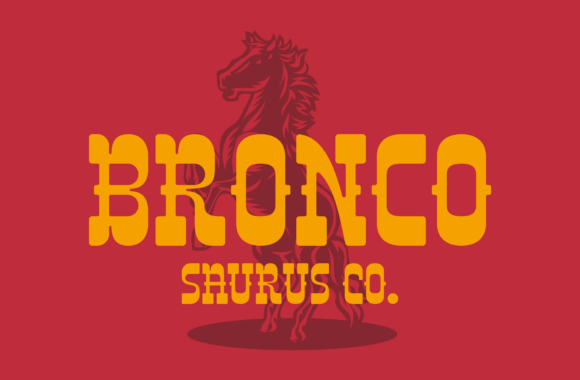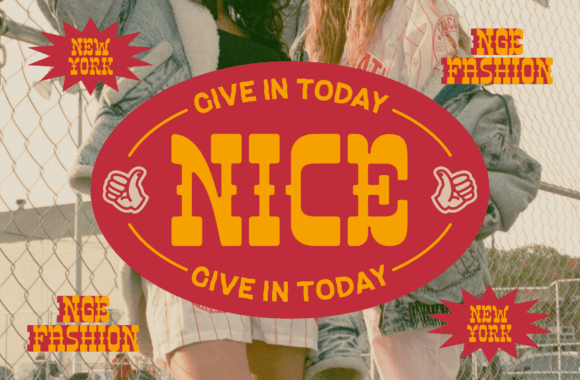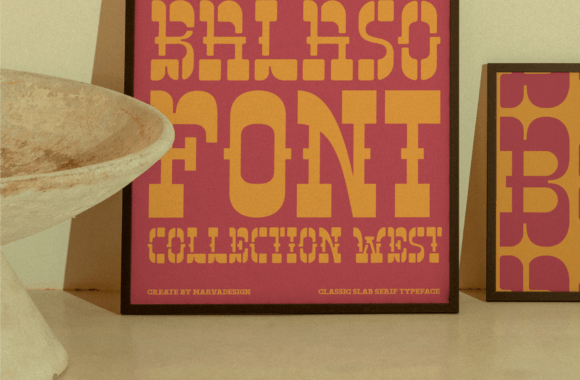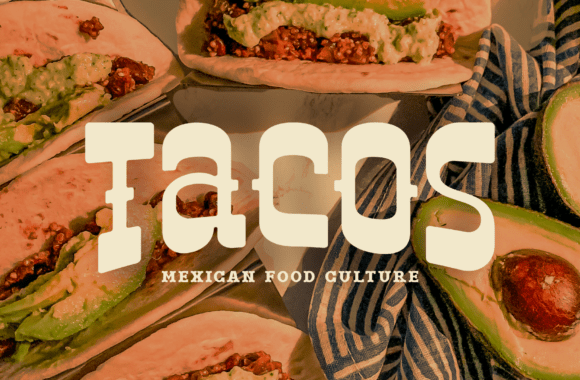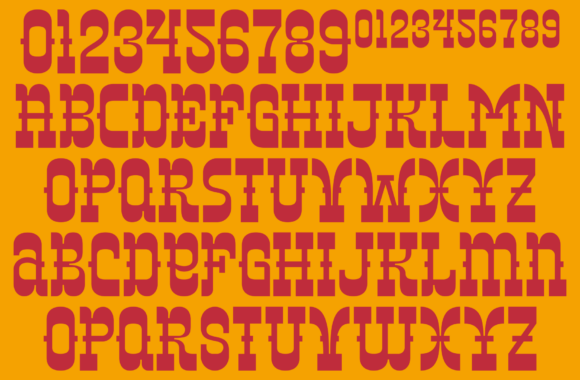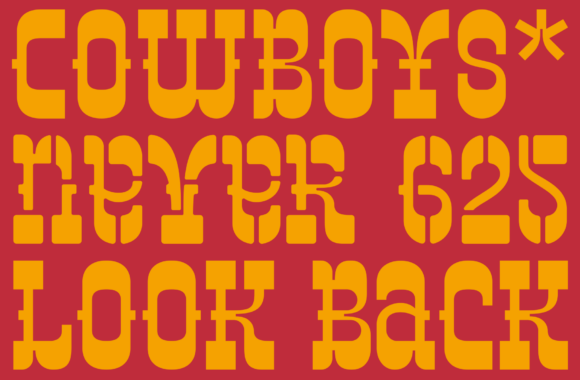
Introduction to El Balaso Font
As a designer, have you ever found yourself stuck on a creative project, desperately searching for the perfect font to capture the essence of your vision? Maybe you’ve scoured through endless options, only to end up with something that feels generic or unoriginal. Well, we’ve got some exciting news for you – your search is over with the introduction of El Balaso Font, a bold and expressive western-style typeface that’s about to revolutionize your design game.
With its retro and rugged aesthetic, reminiscent of classic Wild West signs and vintage rodeo posters, El Balaso Font is the perfect addition to any design project that requires a touch of nostalgia and high-quality style. Whether you’re working on a branding project, a fashion editorial, or a music poster, this versatile typeface is sure to make a statement.
Not only is El Balaso Font a valuable resource for designers, but it’s also free to download and comes with a transparent background, making it easy to integrate into your creative projects. With its three unique styles – Regular, Rounded, and Stencil – you’ll have endless possibilities to experiment and find the perfect fit for your design.
Key Features of El Balaso Font
- High-quality design with a unique, whimsical style, making it perfect for creative projects.
- Includes a range of glyphs, including international characters, making it a versatile design resource.
Honest Review: El Balaso Font
As a designer, I’m always on the lookout for unique and high-quality design resources to elevate my creative projects. Recently, I stumbled upon the El Balaso Font, and I’m excited to share my honest review with you.
- The El Balaso Font offers a wide range of styles and variations, making it perfect for creative projects that require a unique touch.
- The character set is limited, which may not be ideal for projects that require a wide range of special characters.
Overall, I’m impressed with the El Balaso Font. It’s a high-quality design resource that’s perfect for creative projects on a budget. While it may have some limitations, the benefits far outweigh the drawbacks. If you’re looking for a unique and free font to elevate your designs, El Balaso is definitely worth checking out.
Tips for Getting the Most Out of El Balaso Font
To get the most out of the El Balaso Font, try using it in a creative project where its unique design will shine. Experiment with different font sizes and styles to add visual interest to your design.
The El Balaso Font is a versatile design resource that can be used in a variety of applications, including logos, business cards, and social media graphics. Its high-quality design and transparent background make it an ideal choice for any creative project.